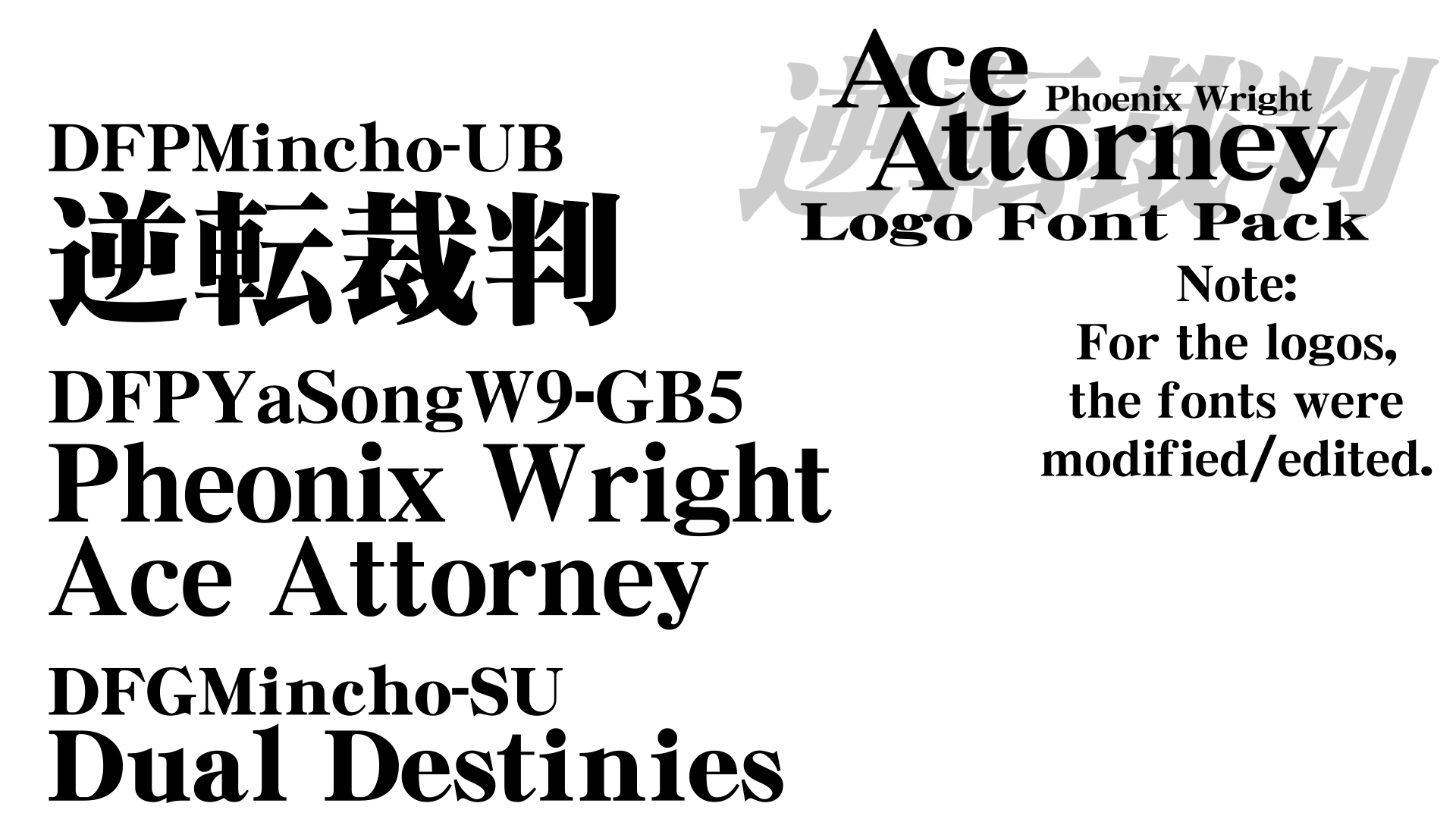
Phoenix Wright Font
Phoenix Wright Font - Not holding out too much hope for this one, but it's a pretty attractive font. As said before, it's cassia, but it isn't free. It can be georgia, but the numbers look a wee bit funny, i found that one that looks pretty dang close, and. I've tried to get a bunch of screenshots showing the font, including the.
It can be georgia, but the numbers look a wee bit funny, i found that one that looks pretty dang close, and. As said before, it's cassia, but it isn't free. Not holding out too much hope for this one, but it's a pretty attractive font. I've tried to get a bunch of screenshots showing the font, including the.
I've tried to get a bunch of screenshots showing the font, including the. Not holding out too much hope for this one, but it's a pretty attractive font. As said before, it's cassia, but it isn't free. It can be georgia, but the numbers look a wee bit funny, i found that one that looks pretty dang close, and.
I've tried to get a bunch of screenshots showing the font, including the. As said before, it's cassia, but it isn't free. It can be georgia, but the numbers look a wee bit funny, i found that one that looks pretty dang close, and. Not holding out too much hope for this one, but it's a pretty attractive font.
I've tried to get a bunch of screenshots showing the font, including the. It can be georgia, but the numbers look a wee bit funny, i found that one that looks pretty dang close, and. Not holding out too much hope for this one, but it's a pretty attractive font. As said before, it's cassia, but it isn't free.
I've tried to get a bunch of screenshots showing the font, including the. Not holding out too much hope for this one, but it's a pretty attractive font. It can be georgia, but the numbers look a wee bit funny, i found that one that looks pretty dang close, and. As said before, it's cassia, but it isn't free.
As said before, it's cassia, but it isn't free. Not holding out too much hope for this one, but it's a pretty attractive font. I've tried to get a bunch of screenshots showing the font, including the. It can be georgia, but the numbers look a wee bit funny, i found that one that looks pretty dang close, and.
As said before, it's cassia, but it isn't free. Not holding out too much hope for this one, but it's a pretty attractive font. It can be georgia, but the numbers look a wee bit funny, i found that one that looks pretty dang close, and. I've tried to get a bunch of screenshots showing the font, including the.
Not holding out too much hope for this one, but it's a pretty attractive font. I've tried to get a bunch of screenshots showing the font, including the. It can be georgia, but the numbers look a wee bit funny, i found that one that looks pretty dang close, and. As said before, it's cassia, but it isn't free.
As said before, it's cassia, but it isn't free. I've tried to get a bunch of screenshots showing the font, including the. Not holding out too much hope for this one, but it's a pretty attractive font. It can be georgia, but the numbers look a wee bit funny, i found that one that looks pretty dang close, and.
As Said Before, It's Cassia, But It Isn't Free.
It can be georgia, but the numbers look a wee bit funny, i found that one that looks pretty dang close, and. Not holding out too much hope for this one, but it's a pretty attractive font. I've tried to get a bunch of screenshots showing the font, including the.